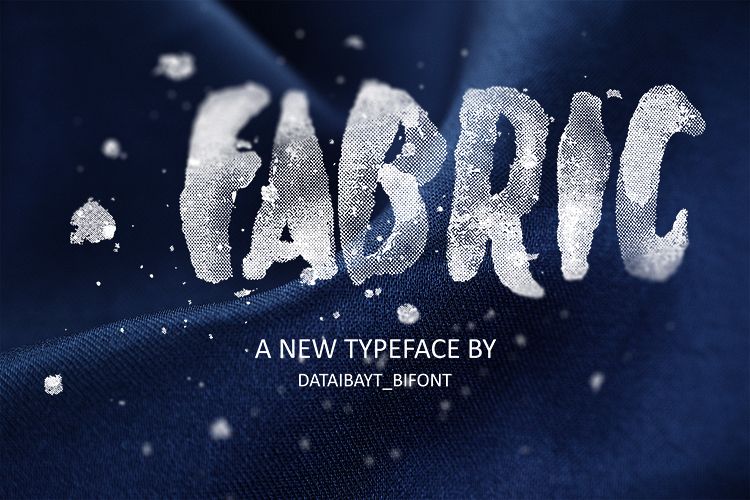
FABRIC FONT
fabric
It's look style makes it perfect for use in all your design projects be it logos, signatures, labels, packaging design, blog headlines. Using PABRIC FONT will definitely make your text stand out.
FABRIC FONT